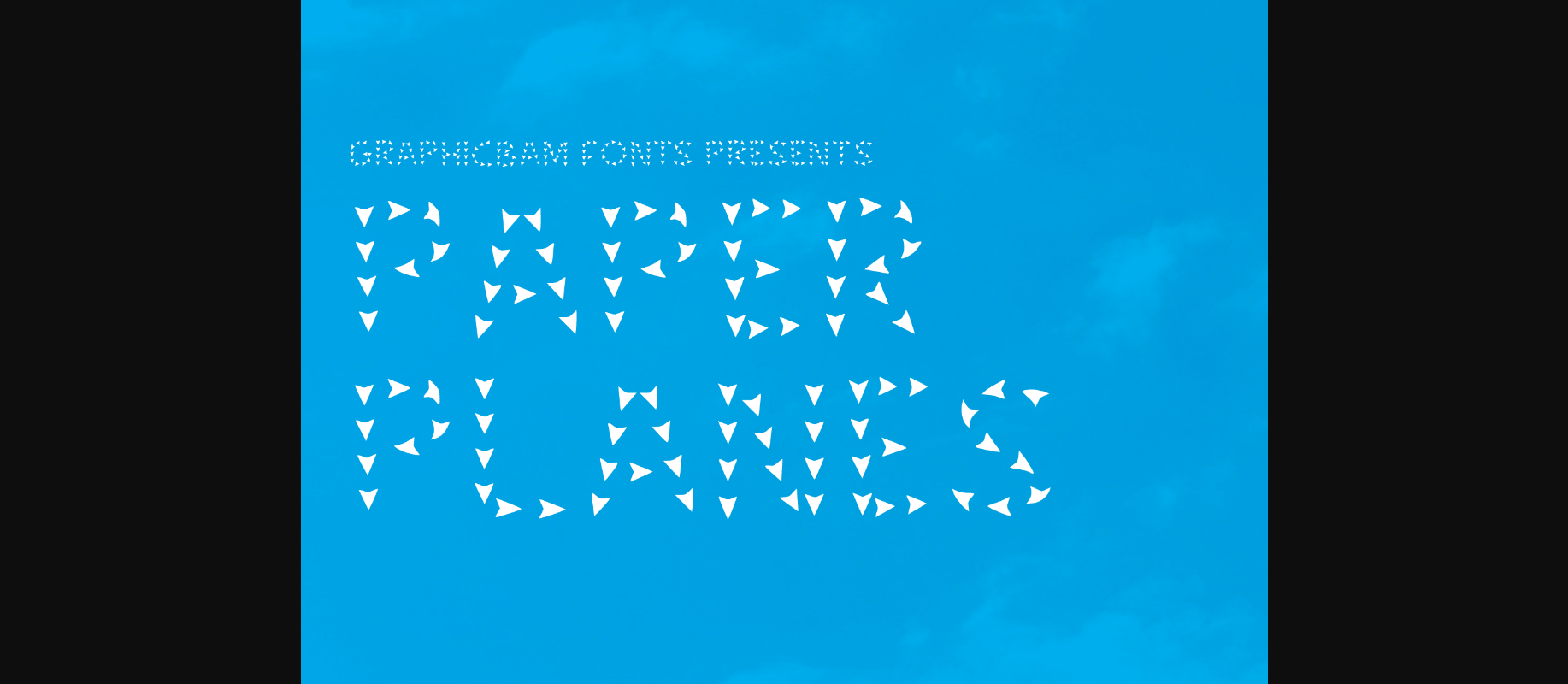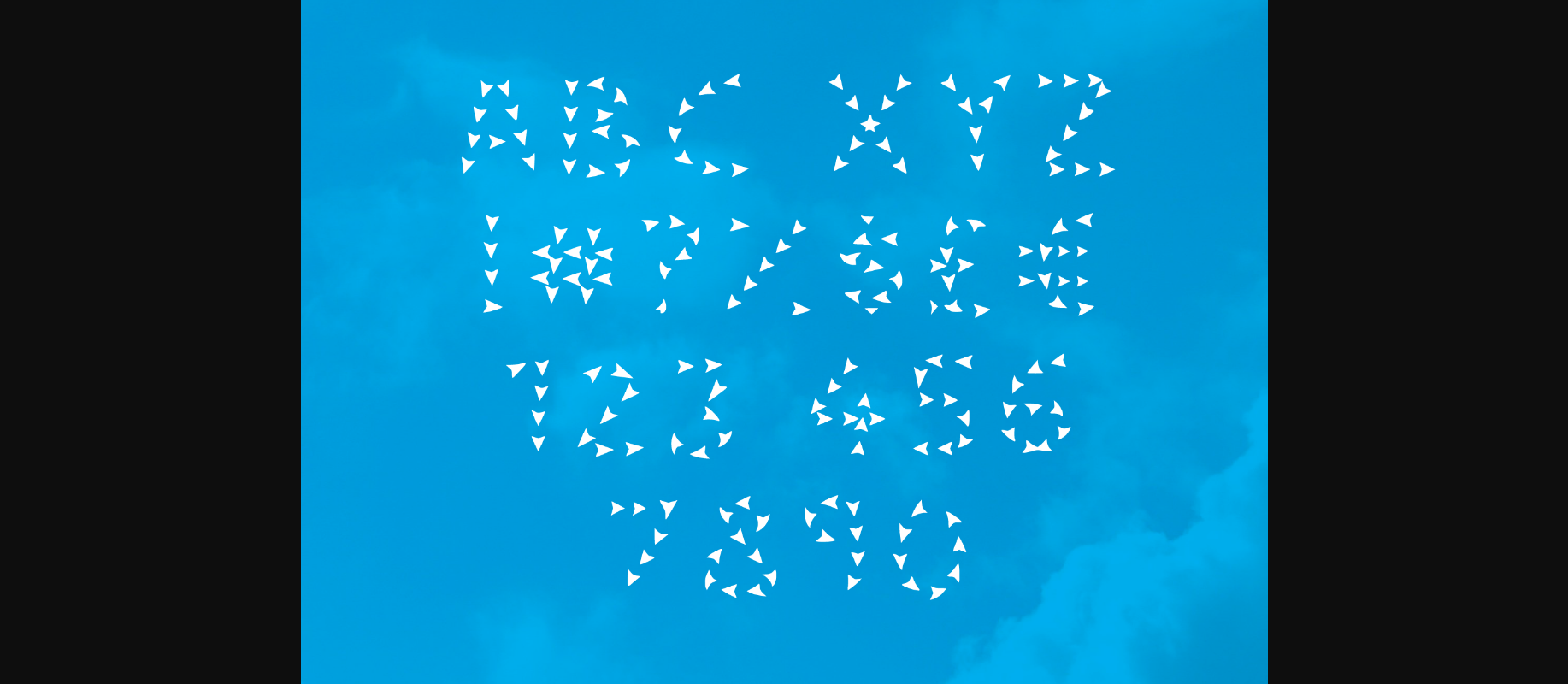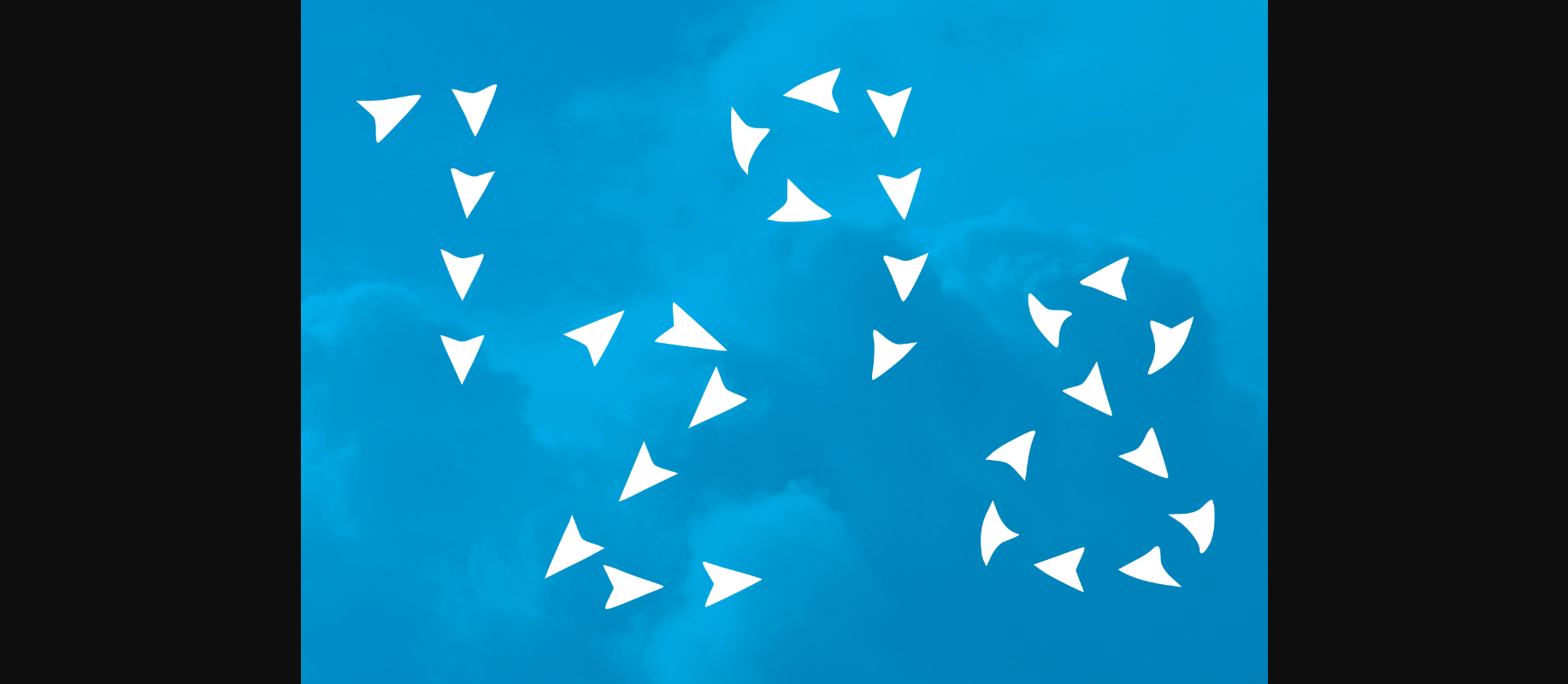
Paper Planes Font
About Paper Planes Font
Paper Planes is a fun looking decorative font, with characters build off of crafted paper planes. Add a playful touch to your designs with this unique font!